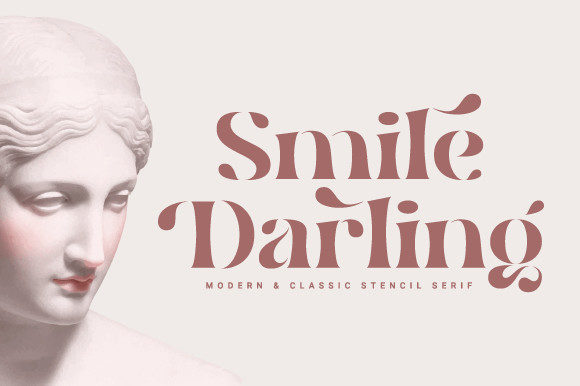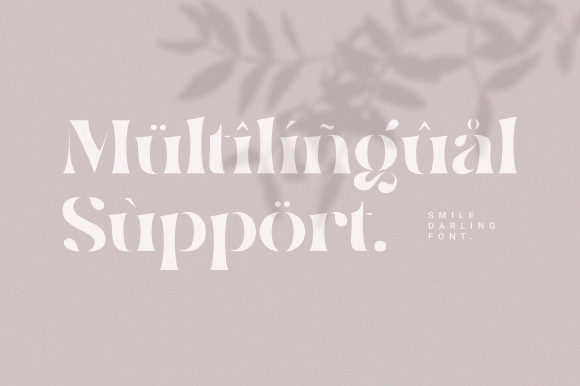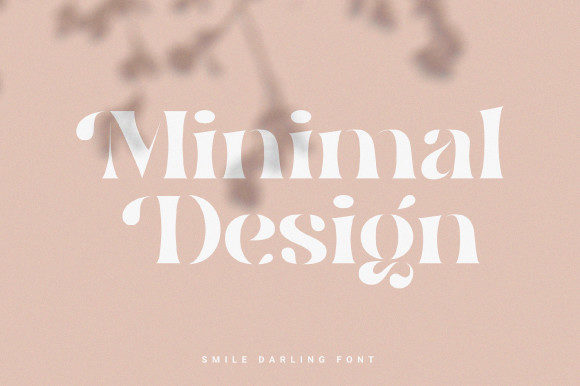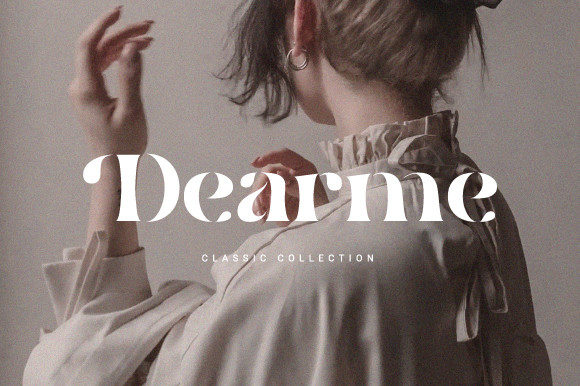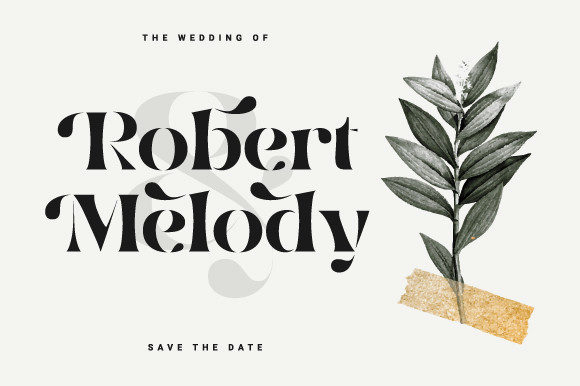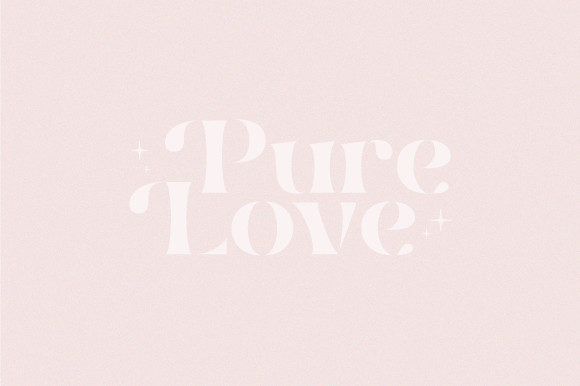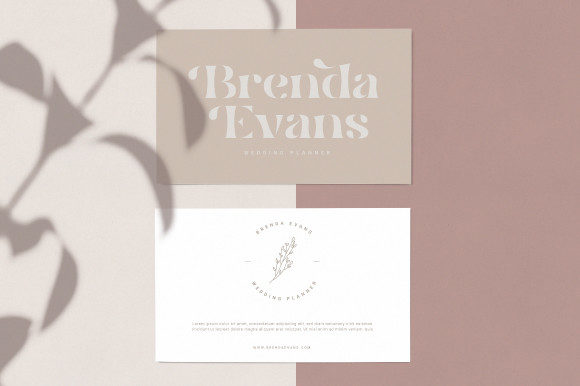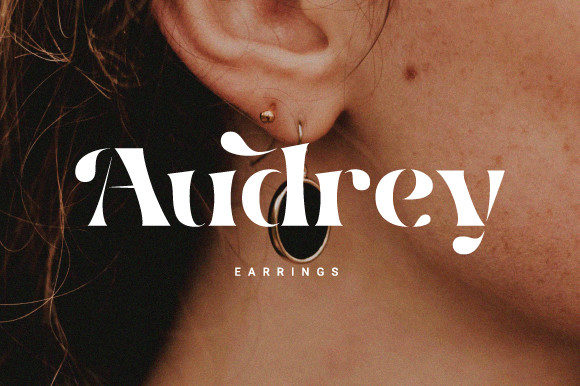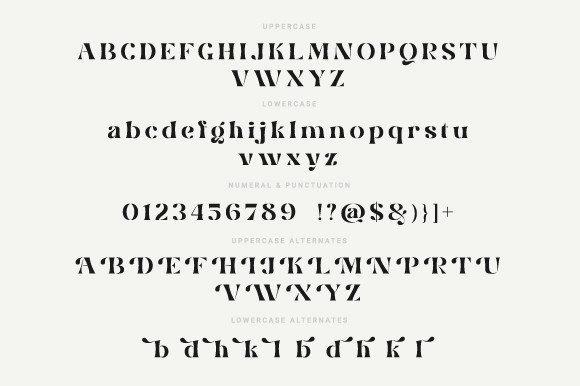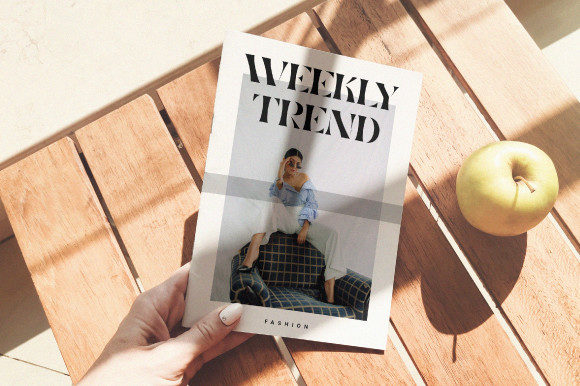
Smile Darling
Smile Darling: A Modern and Classic Slab Serif Font
Smile Darling is a distinctive slab serif font that combines modern style with classic elegance. This versatile typeface is designed to inspire creativity and expand design possibilities across various projects.
Key Features of Smile Darling
• Modern Design: Offers a contemporary look that aligns with current design trends.
• Classic Elements: Incorporates timeless features for a balanced aesthetic.
• Slab Serif Structure: Features the characteristic thick, rectangular serifs typical of slab serif fonts.
• Versatile Application: Suitable for a wide range of projects, from branding to wedding invitations.
• Creativity Inspiring: Designed to encourage new ideas and creative expression.
Ideal Uses for Smile Darling
Smile Darling’s unique characteristics make it particularly well-suited for:
• Branding and logo design
• Social media posts and graphics
• Magazine layouts and headlines
• Wedding invitations and stationery
• Poster and advertisement designs
• Website headers and digital content
When incorporating Smile Darling into your designs, consider these tips:
• Use for headlines or short blocks of text to showcase its modern yet classic style
• Experiment with different sizes to highlight the font’s unique details
• Utilize its versatility to inspire new creative ideas across various projects
Smile Darling is an excellent choice for designers looking to add a modern and classic slab serif font to their typographic toolkit. Its ability to inspire creativity and expand design possibilities makes it stand out in the world of typography. Whether you’re working on logo designs for contemporary brands, creating layouts for social media, or developing content for wedding invitations, Smile Darling offers the perfect blend of modernity and timeless appeal.
Furthermore, Smile Darling’s PUA encoding allows designers to easily access all glyphs and swashes, expanding the creative possibilities of this font. From vintage-inspired designs with a modern twist to more playful layouts that need a touch of sophistication, this font can elevate your projects. Its modern yet classic style works particularly well in designs that require a thoughtful and refined mood.
In conclusion, Smile Darling is a font that truly lives up to its name, bringing a smile to both designers and viewers alike. Its ability to work well in both elegant, minimalist projects and more elaborate layouts showcases its flexibility. For those looking to add a touch of modern classicism to their work, Smile Darling can even enhance themed creations with its unique, versatile style. Let your creative mind bloom and expand with new ideas as you incorporate this charming font into your designs!